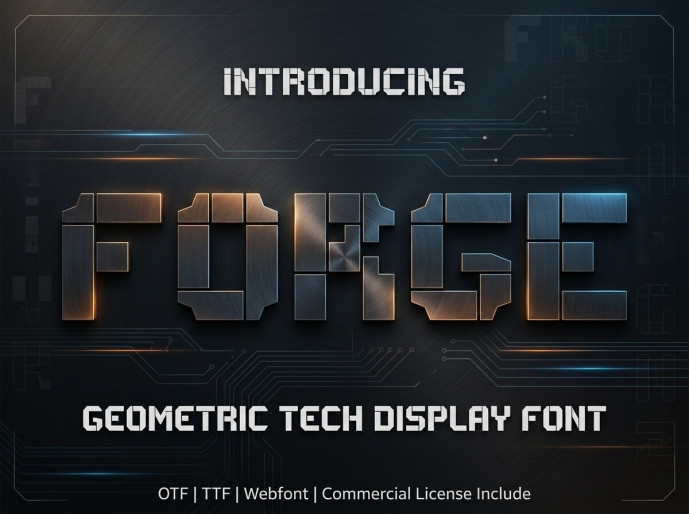
Forma Font
Power up your layouts with Forge, a high-octane geometric tech display font engineered for the digital future! Forge is the absolute go-to choice for esports team logos, retro-futuristic game interfaces, synthwave album artwork, high-tech blog headers, and modern streetwear graphics.